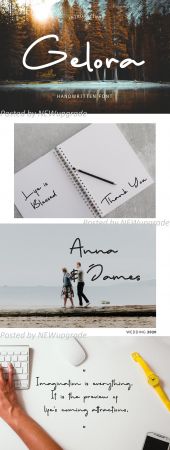
Gelora is handwritten font with monoline style. This font perfect for branding projects, logo, tshirt designs, social media posts, advertisements, product packaging, product designs, label, watermark, invitation, stationery and any projects